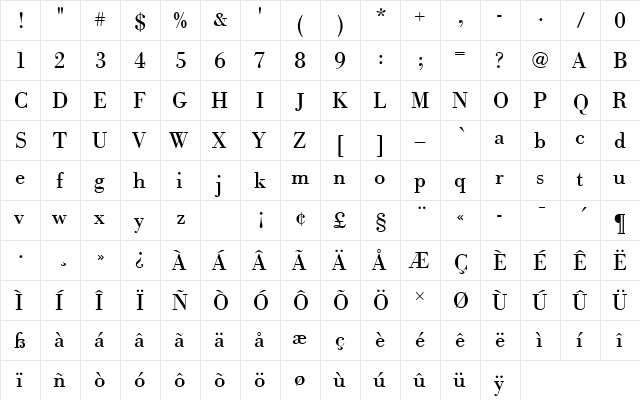
BodoniAntTRegRo1 Regular Font Preview
BodoniAntTRegRo1 Regular
Design Context for BodoniAntTRegRo1 Typeface
BodoniAntTRegRo1 is a composed and adaptable typeface that performs quietly and consistently across a wide range of design contexts.